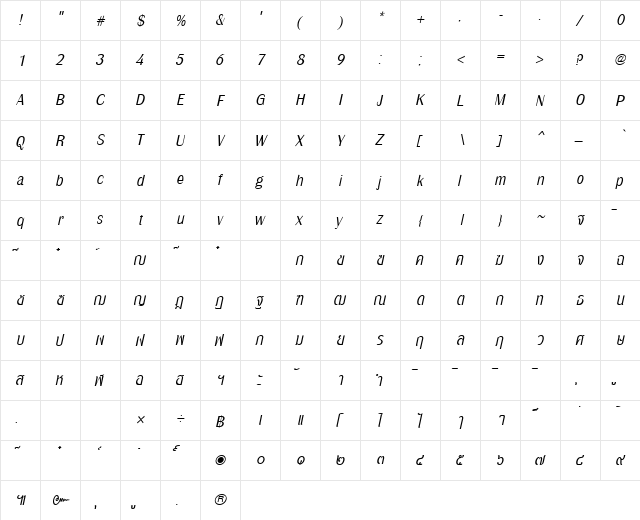
PSL-Pojamarn Italic
Design Context for PSL-Pojamarn Typeface
PSL-Pojamarn takes a measured approach to typography — its balanced proportions and neutral character make it a reliable workhorse for both digital and print work. The dynamic lean of this cut emphasises speed and emphasis in any layout.